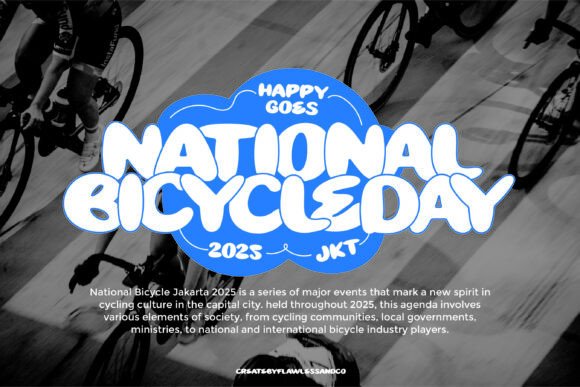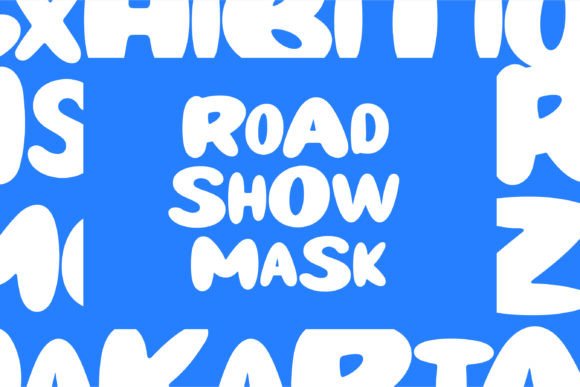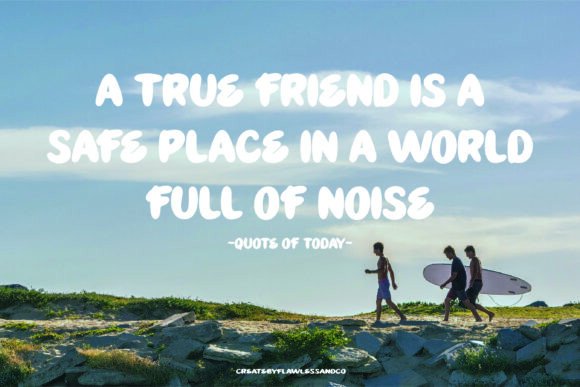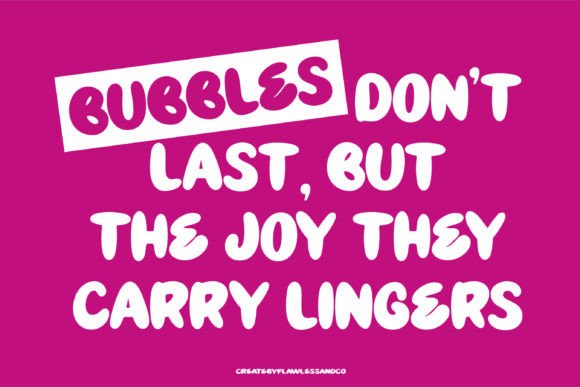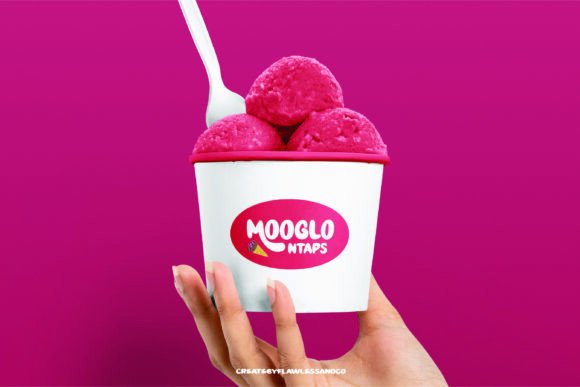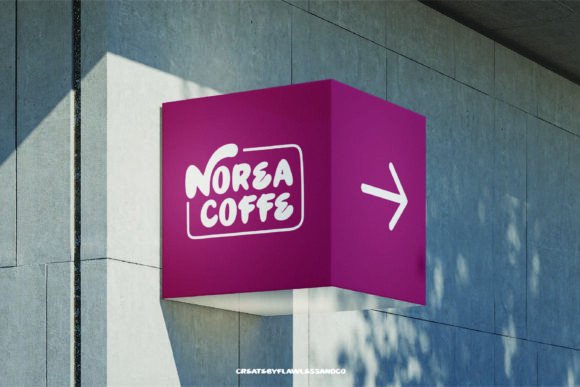
Introduction to Hackbubble Font
Hack Bubble is a playful bubble display font full of personality, featuring rounded and bold letterforms that radiate a fun, modern, and friendly vibe.
Its cheerful curves and balanced proportions make it perfect for creative projects that want to stand out while staying approachable Whether for branding, product packaging, or social media designs.